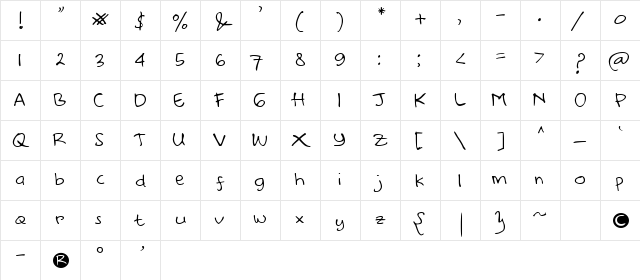
deAr Hand-demo flows with the natural rhythm of handwritten lettering, making it ideal for designs that call for warmth and personal expression.
Font Pairing: Combine deAr Hand-demo with a simple geometric sans for maximum contrast - the tension between flowing curves and clean structure is a classic typographic pairing.
Pro Tip: Use deAr Hand-demo for short runs of text - names, titles, or taglines. Extended body copy in script faces tires the eye quickly.